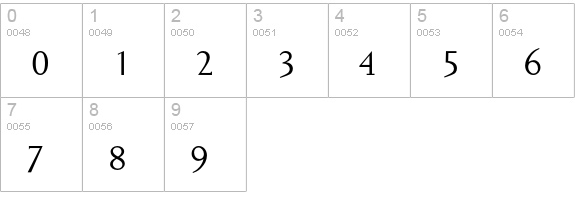
KopyKattText Katt Text Font Details
Introducing KopyKattText Katt Text font - a versatile and stylish typeface perfect for a wide range of design projects. This font exudes elegance and sophistication with its unique blend of sharp edges and smooth curves. KopyKattText Katt Text is designed to make a statement and captivate your audience with its bold and modern look. What sets KopyKattText Katt Text font apart is not only its striking appearance but also its versatility. Whether you're creating a sleek logo, eye-catching poster, or elegant wedding invitation, this font will elevate your design to the next level. And the best part? KopyKattText Katt Text font is completely free to download at FontsMarket.com. Yes, you read that right - you can access this stunning font at no cost, making it accessible to designers, creatives, and enthusiasts alike. Don't miss out on the opportunity to add KopyKattText Katt Text font to your font library today and let your creativity soar with this exceptional typeface. Download it now and start creating jaw-dropping designs that will leave a lasting impression.